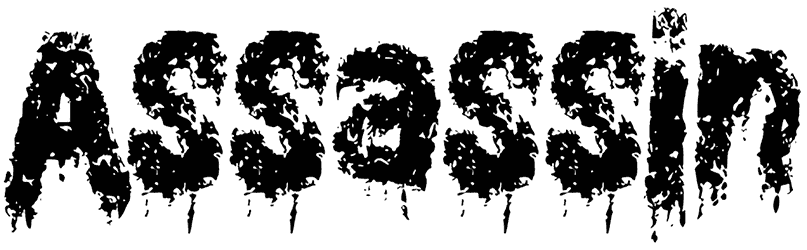
Assassin Font
Each font is suited to a specific type of graphic content, and a magical horror font such as Assassin would look insanely perfect on a huge set of creative ideas, including movie posters, action video game brochures, product packaging, or graffiti that requires a fearful touch.
Due to its faded and dotty style, it can bring a sense of dread and grunge to all of your editorial projects. Aside from the lack of numbers, this dripping font can be your game-changer.